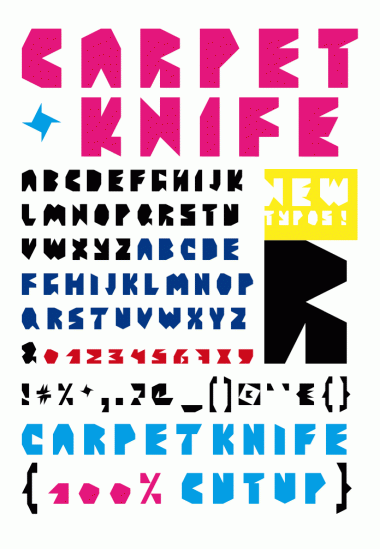
• Clone of atomic scissors. Caps only cutout font. Every character has an alternative (uppercase) form under the lowercase keys. Pick your favourite, or better: use them alternately in the same text to enhance the liveliness! Grrr! Cut!
Rigid bricks bent to define irregular shapes in a very small grid...
Small grids do induce an urge to break out : )
Nice! very good "cut". Love it,...these irregularities kicks!